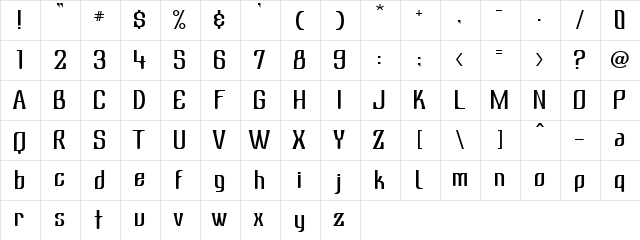
Subatonik Regular
Design Context for Subatonik Typeface
Subatonik offers clean, dependable letterforms without strong stylistic allegiance, making it a practical choice for designers who need flexibility.
Pro Tip: Pair Subatonik with a font of contrasting weight or personality to build a more expressive typographic hierarchy.